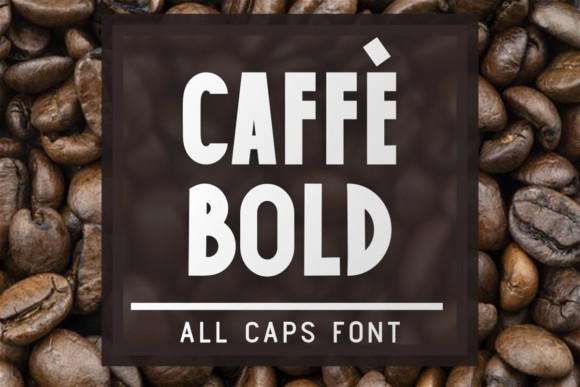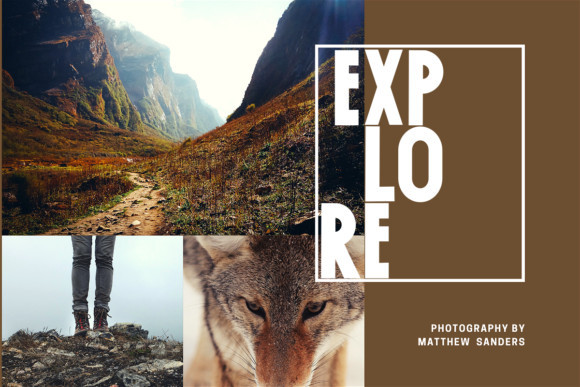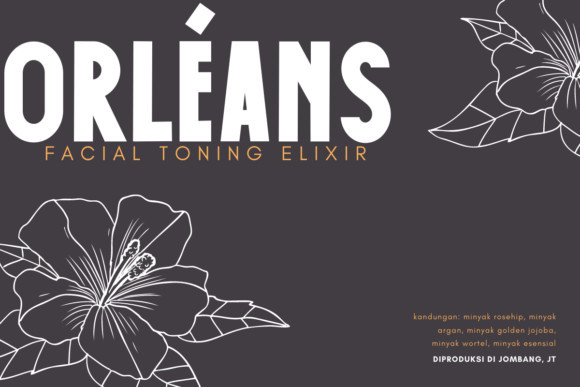
Caffe Bold Font
Caffe Bold is a simple bold sans serif font. It can easily be matched to an incredibly large set of projects, so add it to your creative ideas and notice how it makes them stand out!